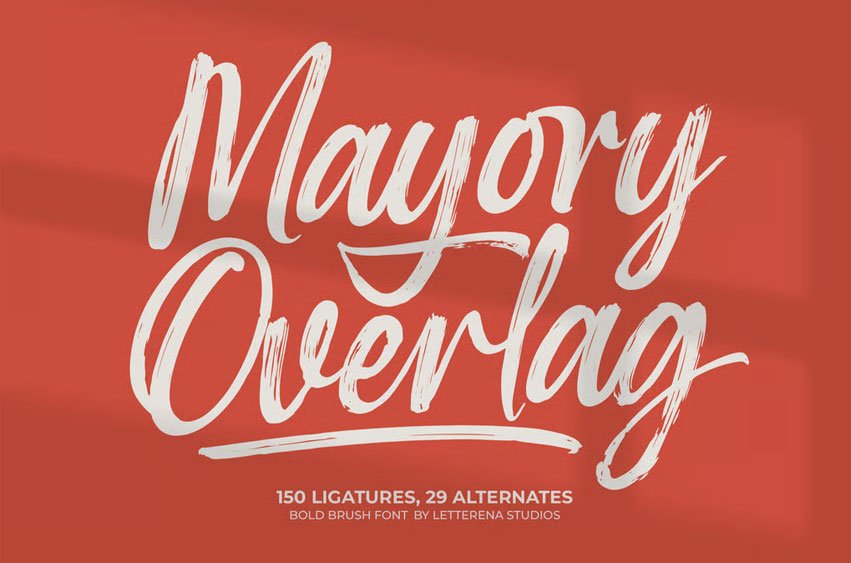
Mayory Overlag Font is suitable to complement your digital and printed creative products. This font is perfect for posters, social media posts, branding, personal projects, etc.